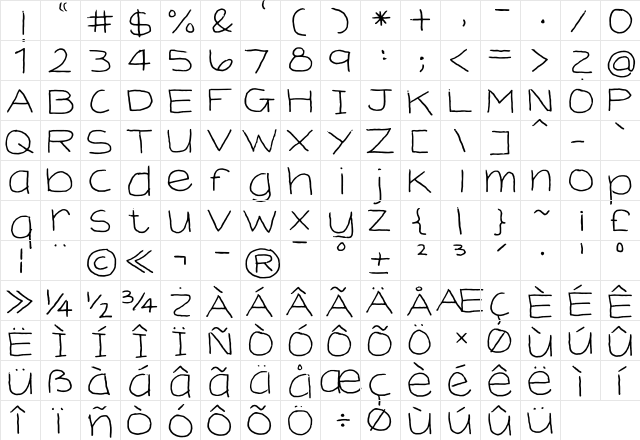
FG Hedda Regular
Design Context for FG Hedda Typeface
FG Hedda takes a measured approach to typography — its balanced proportions and neutral character make it a reliable workhorse for both digital and print work.